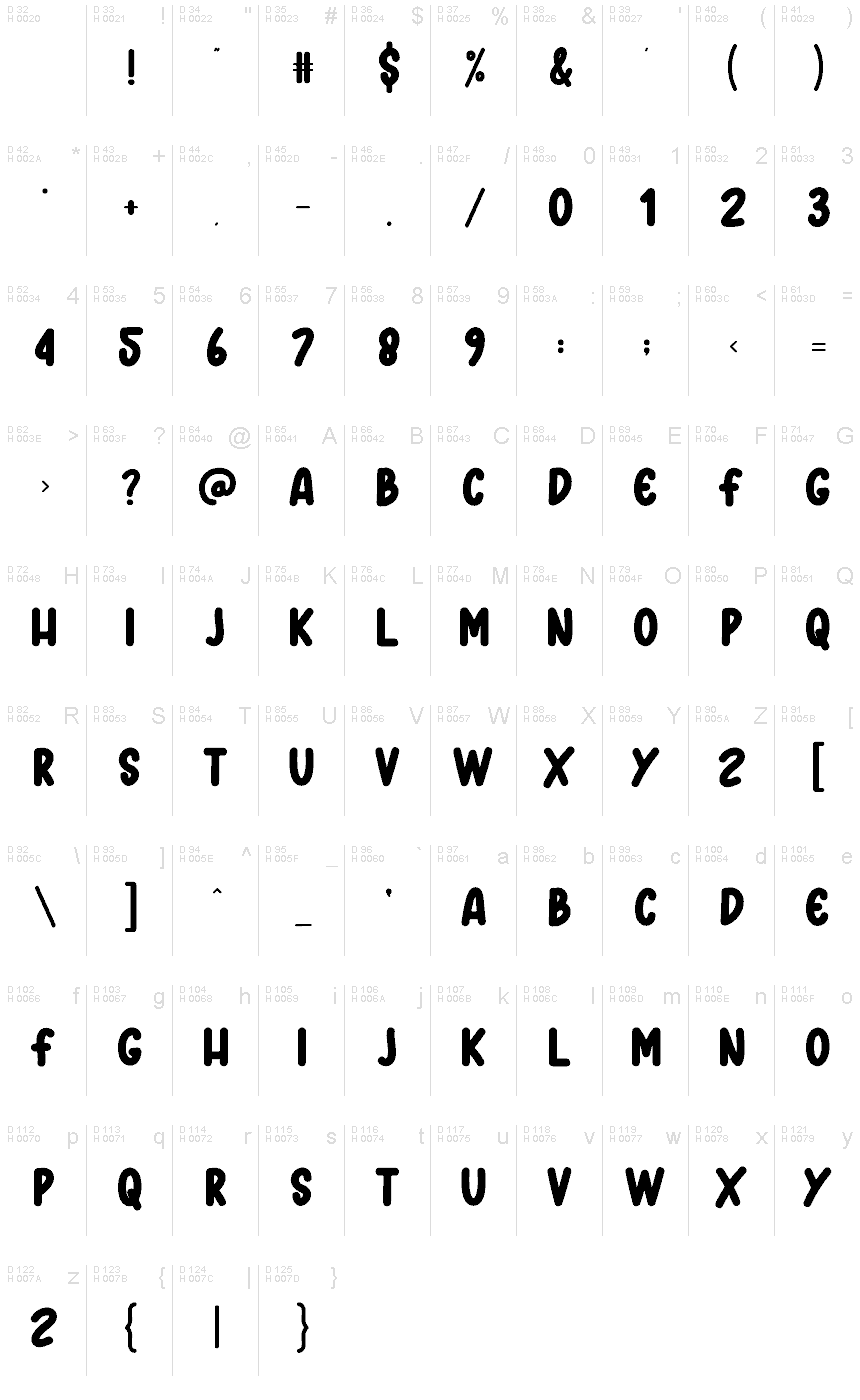
Snack Summer
Snack Summer font designed by Scratchones is a handwritten typeface that plays with the fun aesthetics of round shapes. A retro-inspired script font, Snack Summer looks thick and friendly with an approachable style that design enthusiasts can employ for both singular projects or those that are part of larger corporate identity establishment pursuits.
Such projects can include signage and logotypes for restaurants, bars, pubs, boardwalks etc. Posters and brochures with seasonal offers. Birthday card designs along with product packaging design like t-shirts or other apparel items; all these are possible applications with yet another one being typography-centered social media posts!